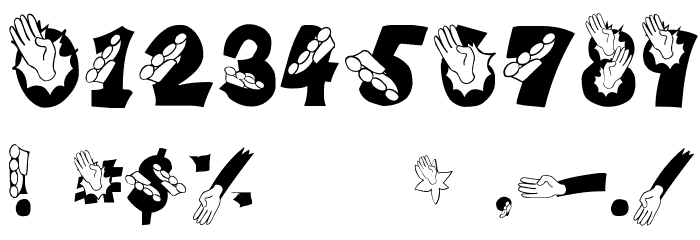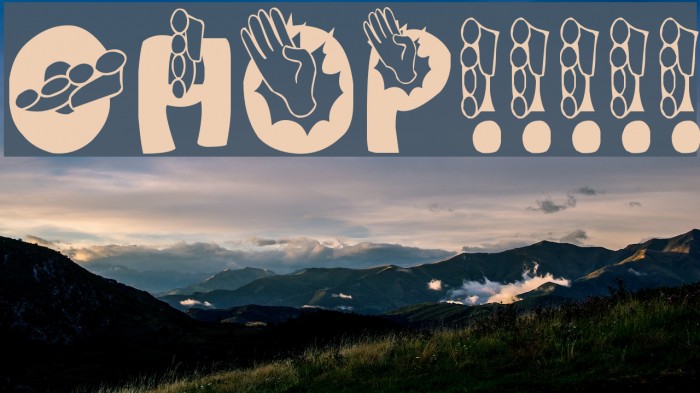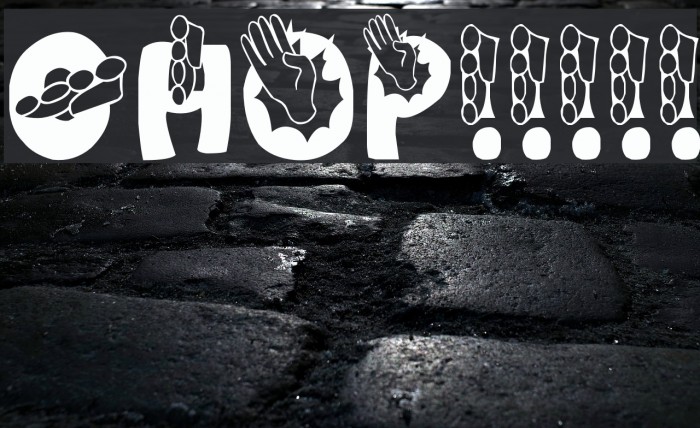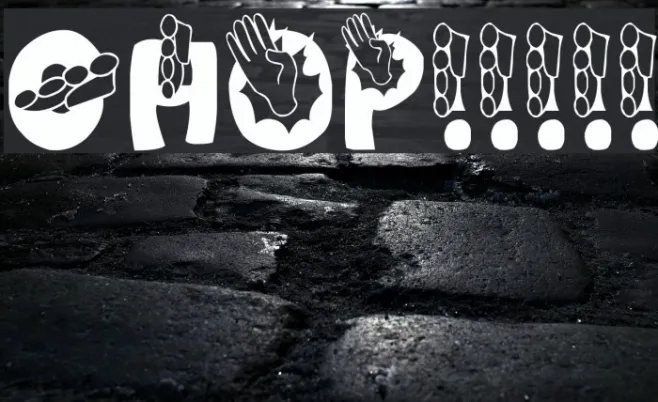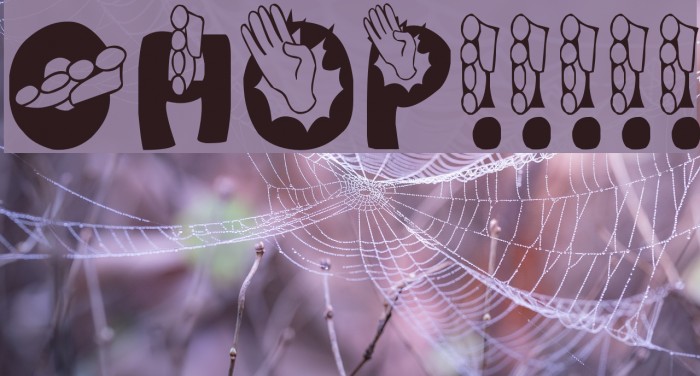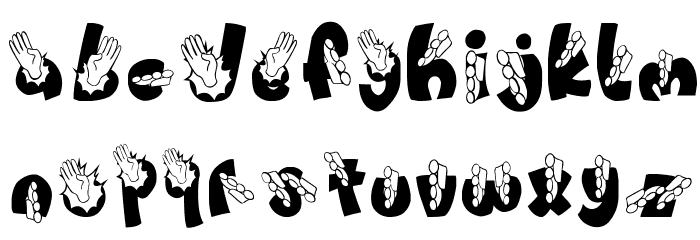
CHOP!!!!! Font
CHOP!!!!! Description
This playful and whimsical font features bold, chunky letters with unique hand illustrations integrated into each character. The design is highly decorative, with each letter incorporating hands in various gestures, creating a dynamic and engaging visual experience. The font is characterized by its bold weight and normal width, with a tight character spacing that enhances its cohesive appearance. The contrast in stroke thickness is medium, providing a balanced look that maintains readability while showcasing its artistic flair. This font is perfect for projects that require a fun and creative touch, such as children's book covers, playful branding, or artistic posters.
| Overall Style | Playful, Whimsical, Artistic |
| Proposed Projects | Ideal for children's books, playful branding, and artistic posters. |